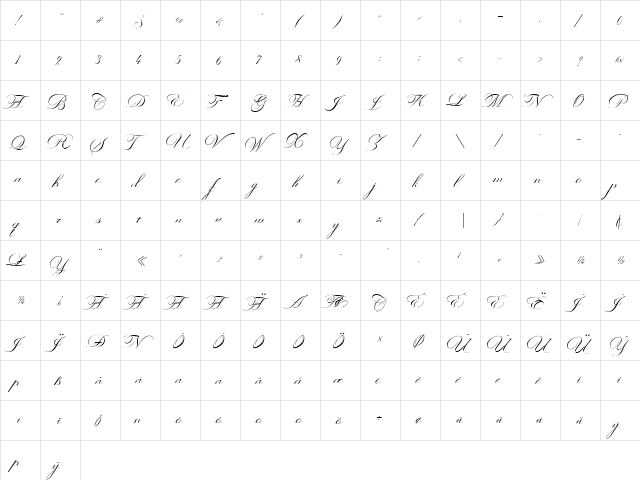
Valetia Script Regular
Valetia Script flows with the natural rhythm of handwritten lettering, making it ideal for designs that call for warmth and personal expression.
Font Pairing: Combine Valetia Script with a simple geometric sans for maximum contrast — the tension between flowing curves and clean structure is a classic typographic pairing.
Pro Tip: Use Valetia Script for short runs of text — names, titles, or taglines. Extended body copy in script faces tires the eye quickly.